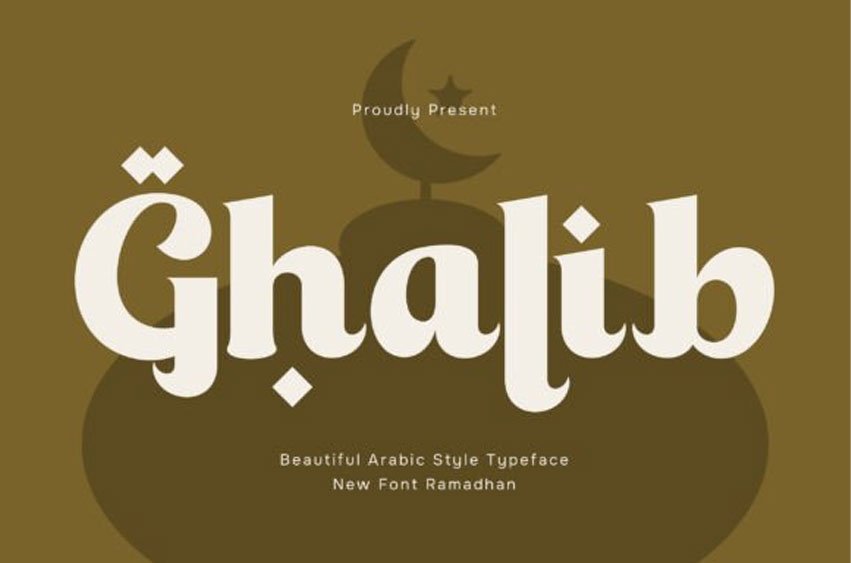
Ghalib Font is a beautiful Arabic-style typeface that captures the elegance and artistic richness of traditional Arabic calligraphy with a modern touch.
Its graceful curves, flowing strokes, and intricate details create a harmonious and refined look, bringing a sense of culture, beauty, and sophistication to every design.